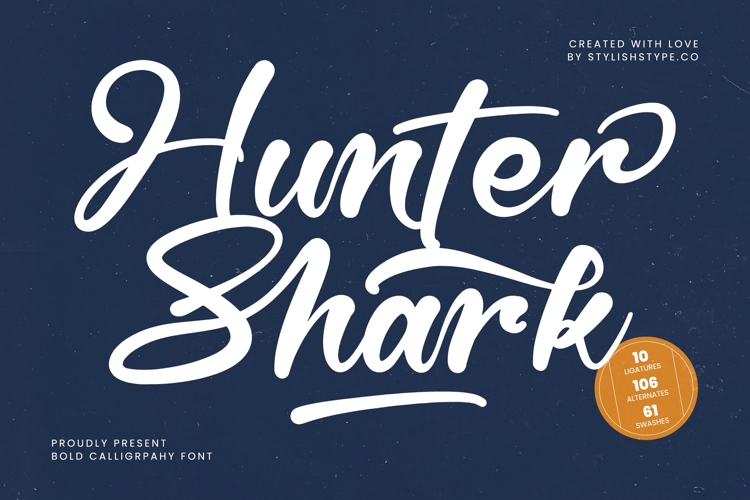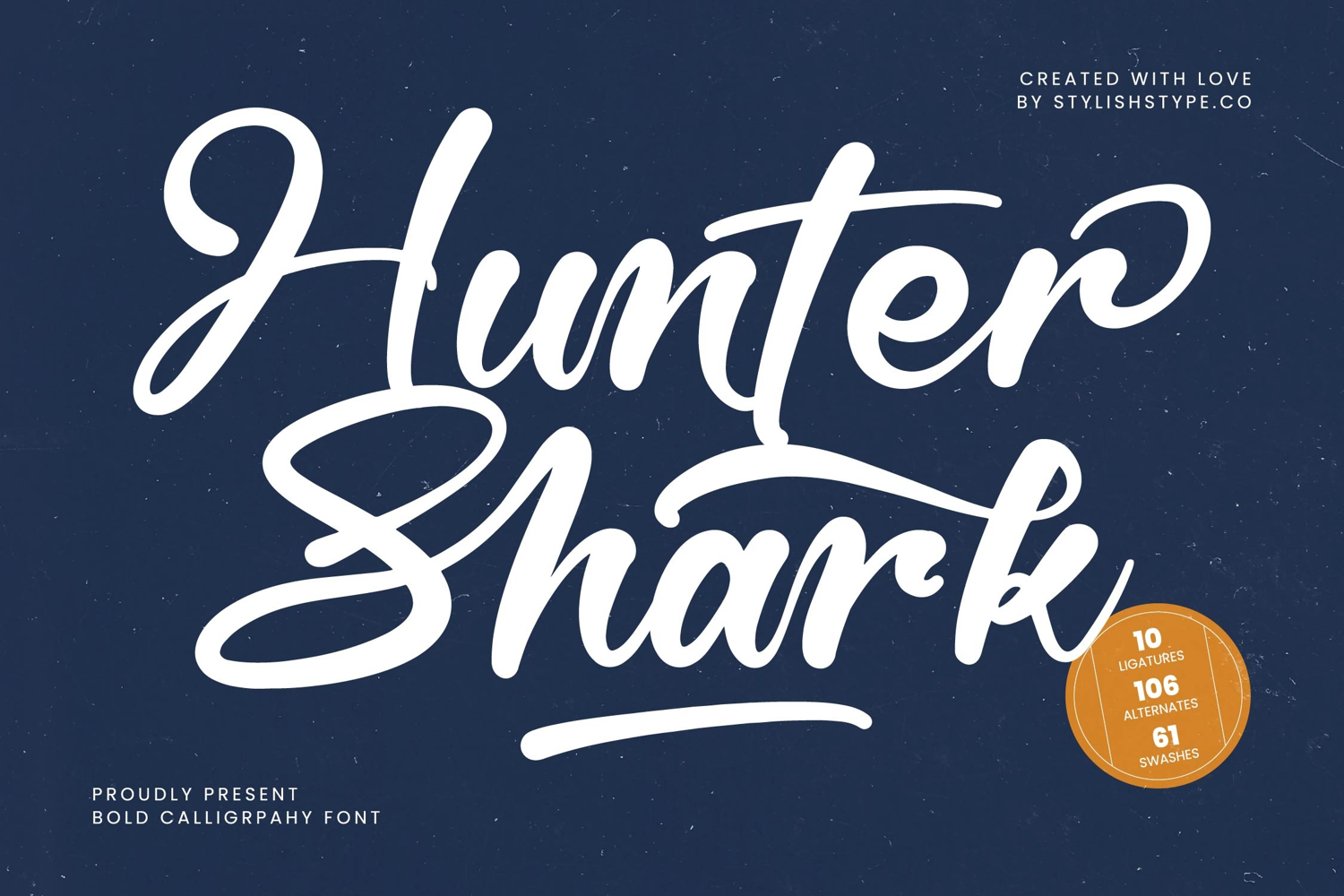
Hunter Shark - Bold Calligraphy Font
Ignite your creative projects with Font Hunter Shark - Bold Calligraphy Font Script, an exceptionally dynamic and expressive typeface designed to make an unforgettable statement. This premium script font blends the raw energy of bold brushstrokes with the refined elegance of calligraphy, delivering a design that is both authoritative and beautifully handcrafted. Its robust weight and fluid connections create a powerful visual presence, perfect for conveying authenticity and confidence in any context.
Unlock unparalleled design flexibility with Font Hunter Shark - Bold Calligraphy Font Script, featuring a comprehensive suite of OpenType capabilities including 10 ligatures, 106 alternates, and 61 swashes. These extensive stylistic options empower designers to craft truly unique and personalized typography, ensuring every word resonates with bespoke charm and sophisticated flair. Experiment with endless character combinations to achieve a custom-drawn aesthetic that sets your work apart.